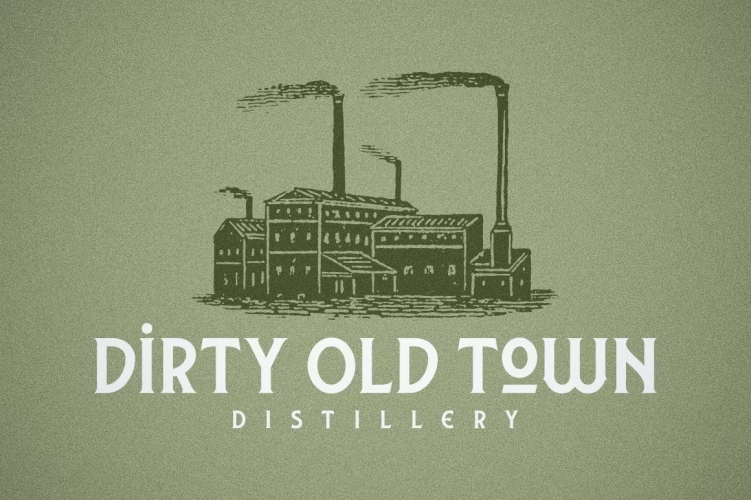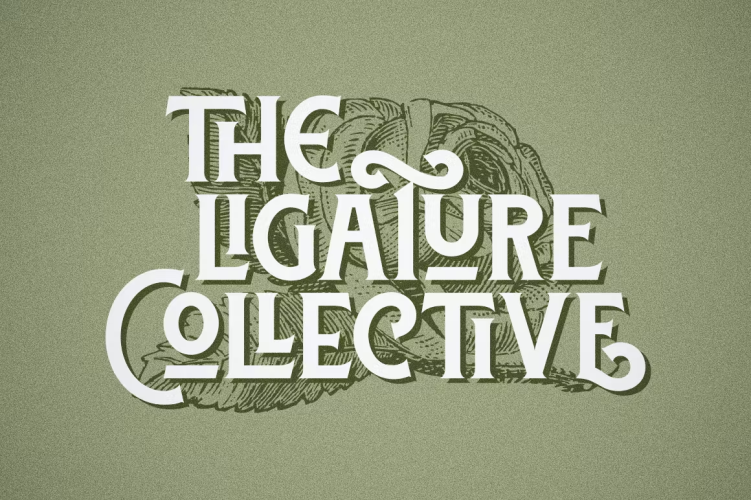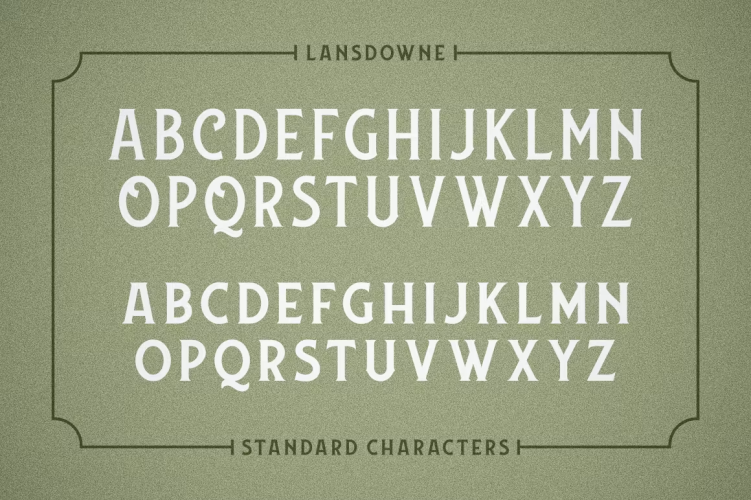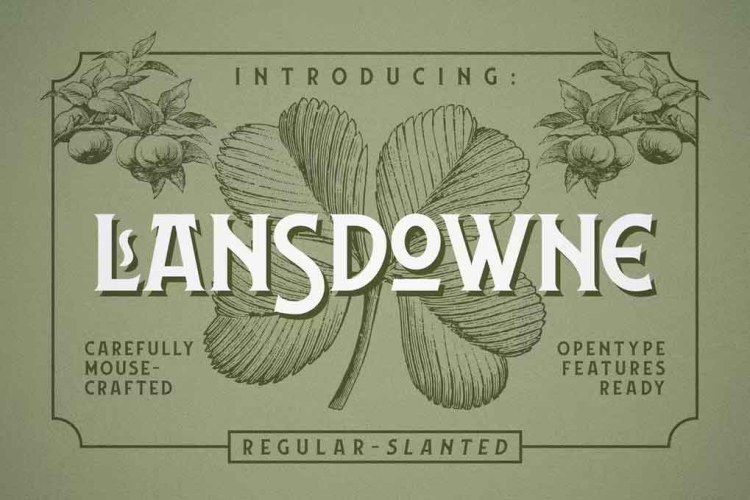
Lansdowne Font
Introducing Lansdowne, vintage all-caps typeface. Perfect blend between clean and vintage themed typework, inspired by the old advertisement letters. Lansdowne’s 470+ glyphs give you strong, sharp, yet clean feels without sacrificing its vintage/classic touch. Mouse-crafted with passion to quench your drought of versatile classic typeface.
Where Lansdowne Font works best
Reports, white papers and book interiors hold the eye longer when the text face has real serifs; Lansdowne Font keeps that rhythm without looking old-fashioned.
Food, spirits and cosmetics brands lean on serif wordmarks to suggest age and care. Lansdowne Font gives that signal at wordmark size.
Set Lansdowne Font for the body of an award or a diploma and keep the recipient name in a script; the pairing is what makes a document feel official.
What kind of work does Lansdowne Font suit?
It sits in the Serif Fonts group and reads as classic, clean, serif, serif fonts. That makes it a candidate wherever those qualities help: headings, packaging, social graphics and brand work. Set it at the size you plan to use before deciding.